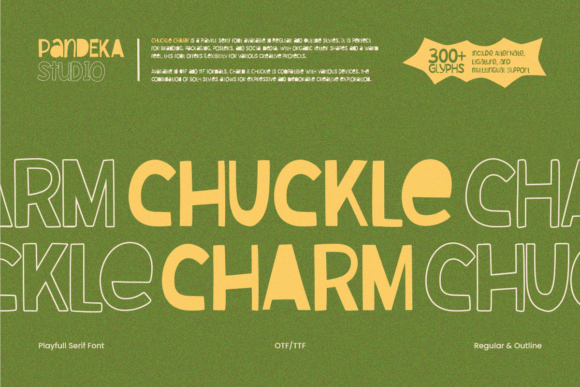
Introducing Chuckle Charm Font: The Playful Handcrafted Serif Font
In the world of typography, fonts play a crucial role in conveying the tone and personality of a design. If you’re looking for a font that can add a touch of fun, quirkiness, and charm to your creations, look no further than Chuckle Charm Font. This handcrafted serif font is designed to bring a smile to your face and make your designs stand out from the crowd.
What is Chuckle Charm Font?
Chuckle Charm Font is a playful, handcrafted serif font that is available in two styles: Regular and Outline. Its fun curves and bold charm make it perfect for a wide range of design needs, from quirky serif duos to playful typography, whimsical designs, and fun lettering. Whether you’re a designer, artist, or DIY enthusiast, Chuckle Charm Font is an excellent choice for adding a touch of personality to your creations.
Key Features of Chuckle Charm Font
- Handcrafted with love: Chuckle Charm Font is carefully crafted with attention to detail, giving it a unique and personal touch.
- Playful and quirky: The font’s fun curves and bold charm make it perfect for designs that require a touch of whimsy and playfulness.
- Available in 2 styles: Regular and Outline styles give you flexibility and versatility in your designs.
- Serif font: The serif font style adds a touch of sophistication and elegance to your designs.
Use Cases for Chuckle Charm Font
Chuckle Charm Font is an incredibly versatile font that can be used in a wide range of design projects, including:
- Posters: Add a touch of fun and personality to your posters with Chuckle Charm Font.
- Packaging: Make your product packaging stand out with this playful and eye-catching font.
- Greeting cards: Add a personal touch to your greeting cards with Chuckle Charm Font.
- Social media: Use Chuckle Charm Font to create engaging and fun social media graphics.
- DIY projects: Add a touch of personality to your DIY projects, such as crafts, scrapbooking, and more.
Benefits of Using Chuckle Charm Font
So, why choose Chuckle Charm Font for your design needs? Here are just a few benefits:
- Unique and eye-catching: Chuckle Charm Font is sure to grab attention and make your designs stand out.
- Fun and playful: The font’s playful curves and bold charm add a touch of fun and whimsy to your designs.
- Versatile: Chuckle Charm Font can be used in a wide range of design projects, from posters to social media graphics.
Tips and Tricks for Using Chuckle Charm Font
Here are a few tips and tricks for getting the most out of Chuckle Charm Font:
- Experiment with colors: Chuckle Charm Font looks great in a variety of colors, so don’t be afraid to experiment and find the perfect hue for your design.
- Mix and match: Try pairing Chuckle Charm Font with other fonts to create a unique and eye-catching design.
- Play with sizes: Experiment with different font sizes to add visual interest to your design.
In conclusion, Chuckle Charm Font is a playful, handcrafted serif font that is perfect for adding a touch of fun and personality to your designs. With its fun curves and bold charm, it’s ideal for a wide range of design needs, from quirky serif duos to playful typography and whimsical designs. Whether you’re a designer, artist, or DIY enthusiast, Chuckle Charm Font is an excellent choice for making your designs stand out from the crowd.